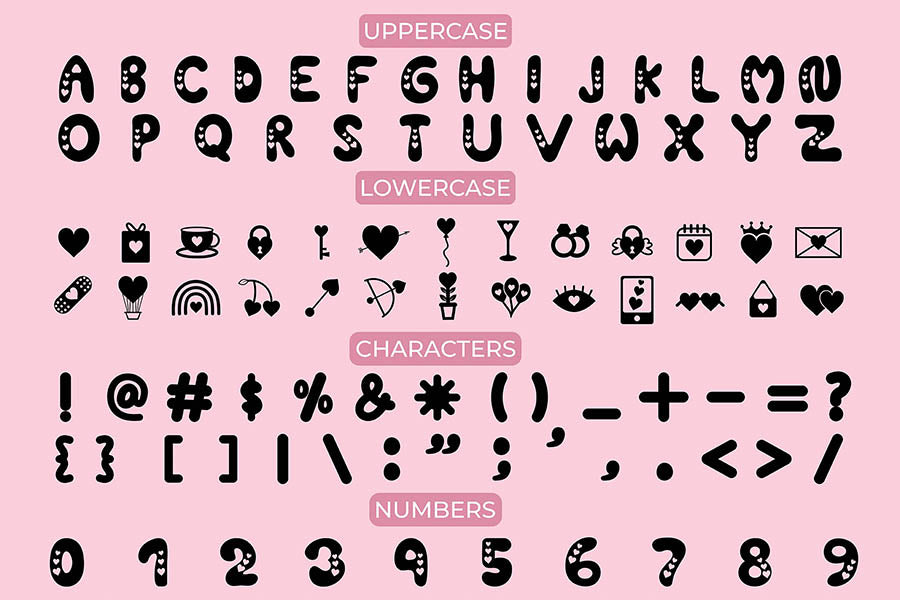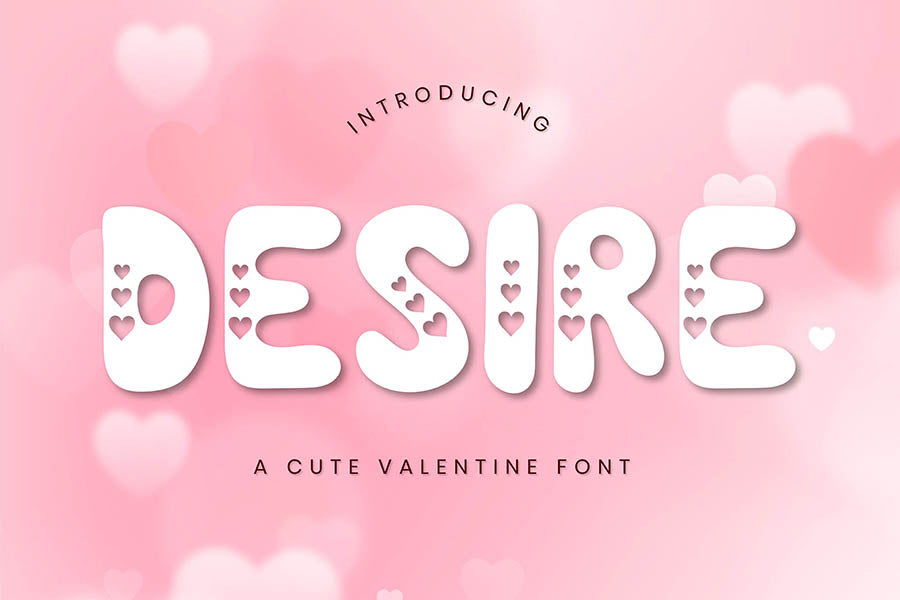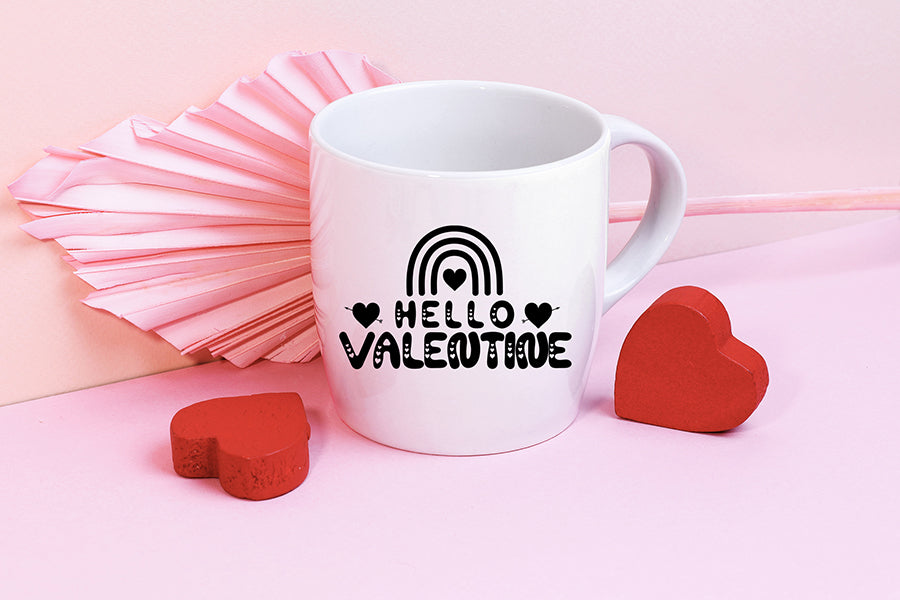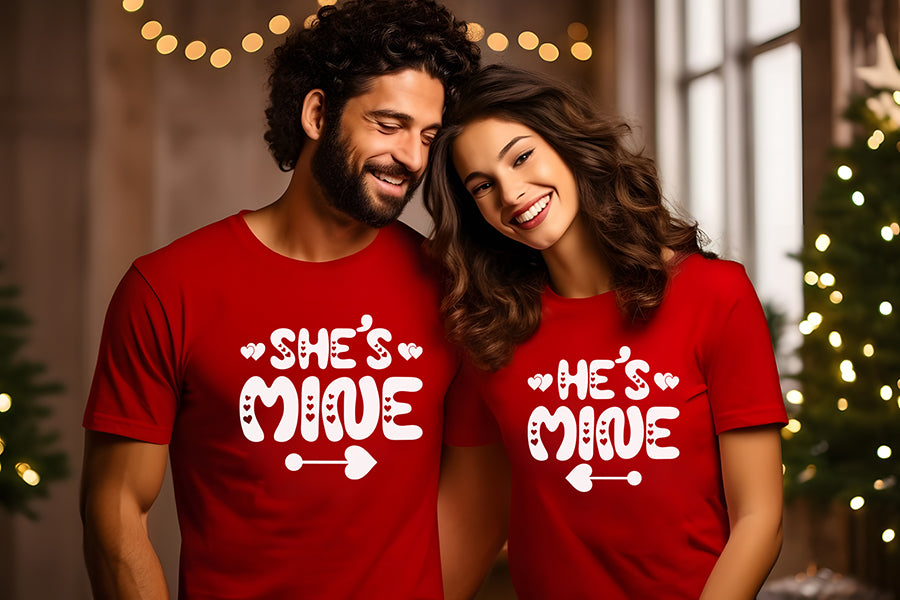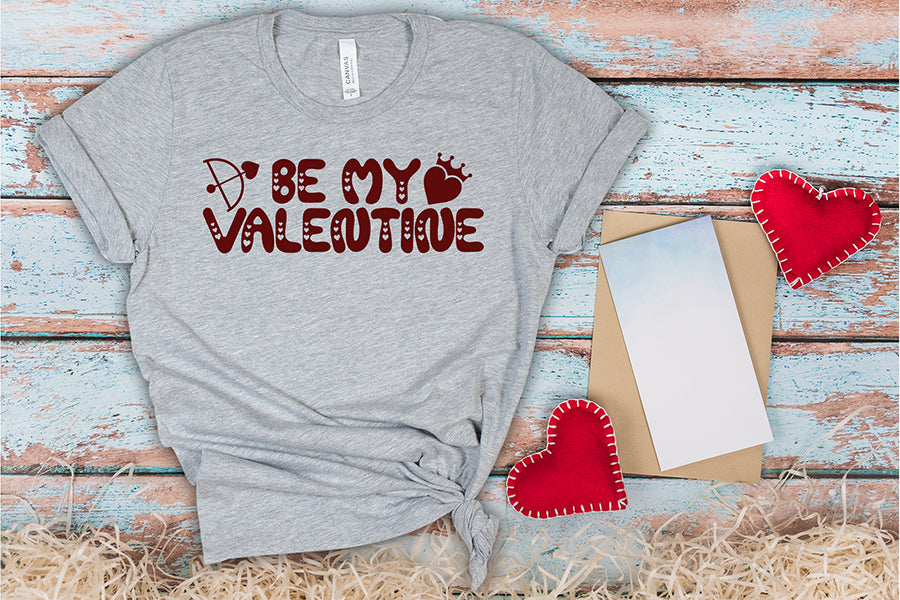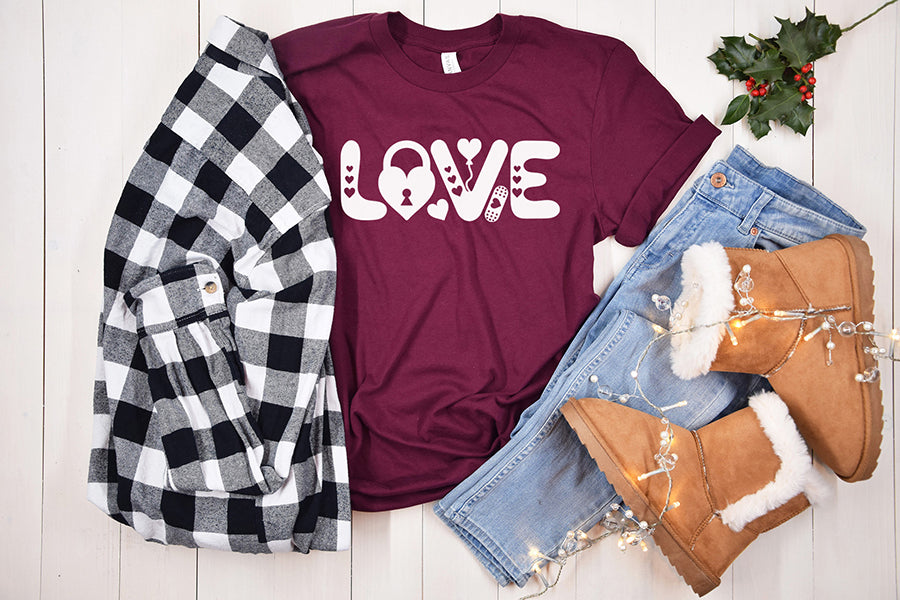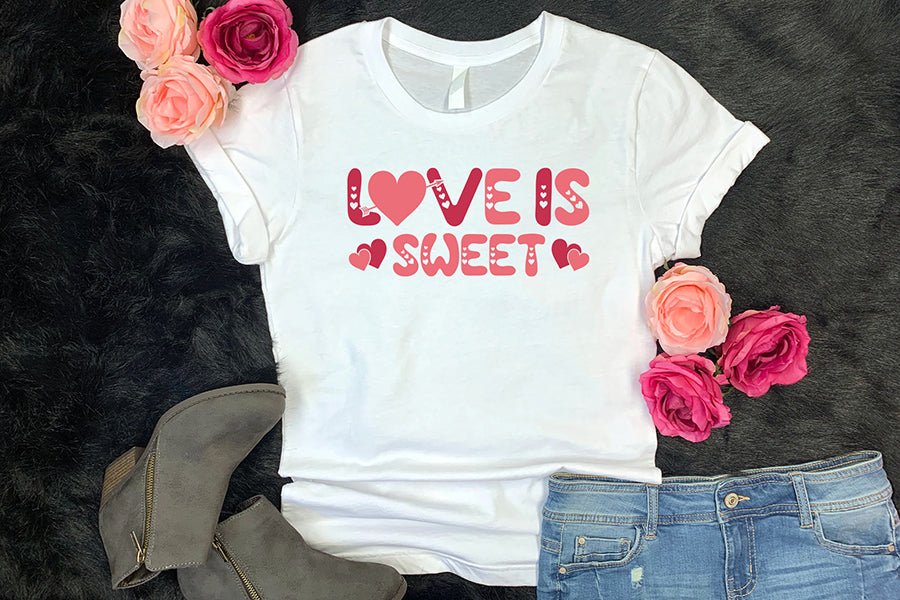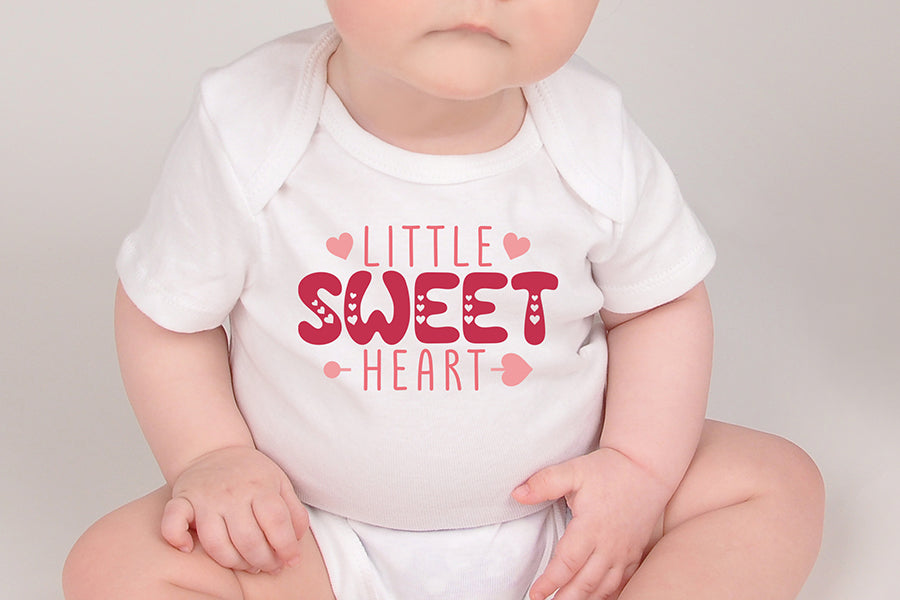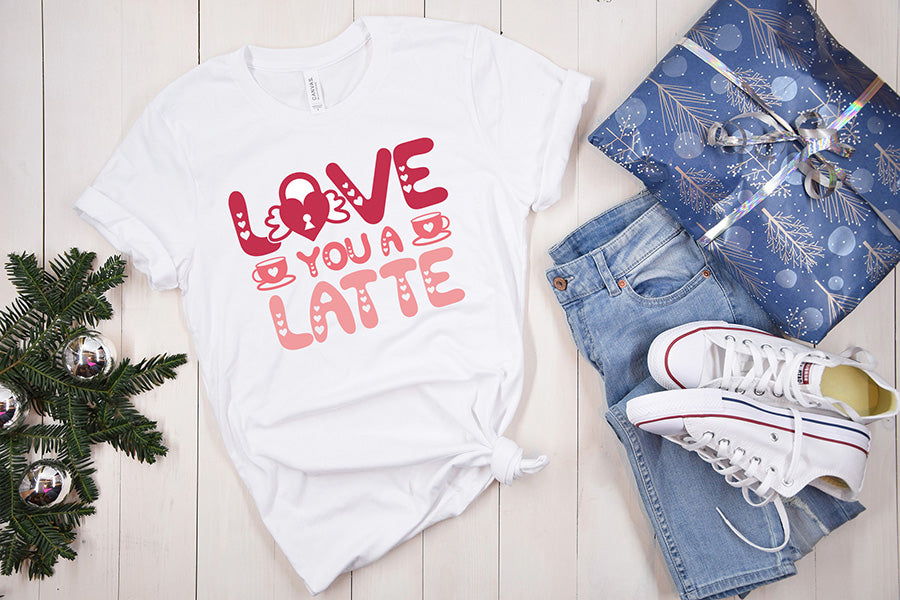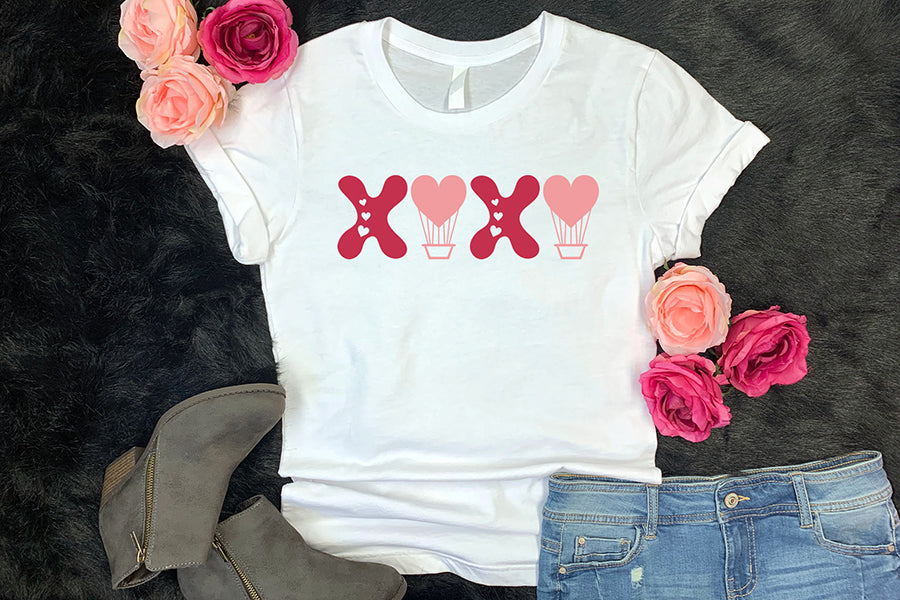
Desire - A Cute Valentine Display Font
Introducing ‘Desire’ – a cute, romantic and playful valentine display font perfect for adding charm to your Valentine’s Day projects. Use this font for greeting cards, t-shirts, mugs, personalized V-day gifts, magazine, packaging, posters, shopping bags, book covers, and more.